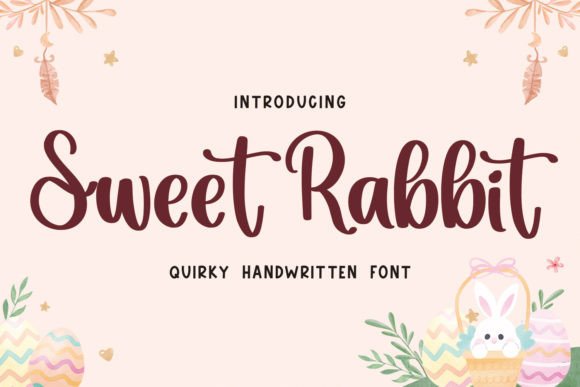
Sweet Rabbit Font
Introducing Sweet Rabbit Font, the perfect script handwritten style font to elevate your Easter, Cricut, embroidery, Thanksgiving, Christmas, craft lettering, and seasonal projects! Designed with a charming handcrafted aesthetic, Sweet Rabbit Font adds a delightful touch to your designs, whether you’re creating festive greeting cards, personalized crafts, or decorative accents for your home. With its whimsical strokes and playful curves, this font captures the essence of joy and celebration, making it an ideal choice for all your holiday-themed endeavors.